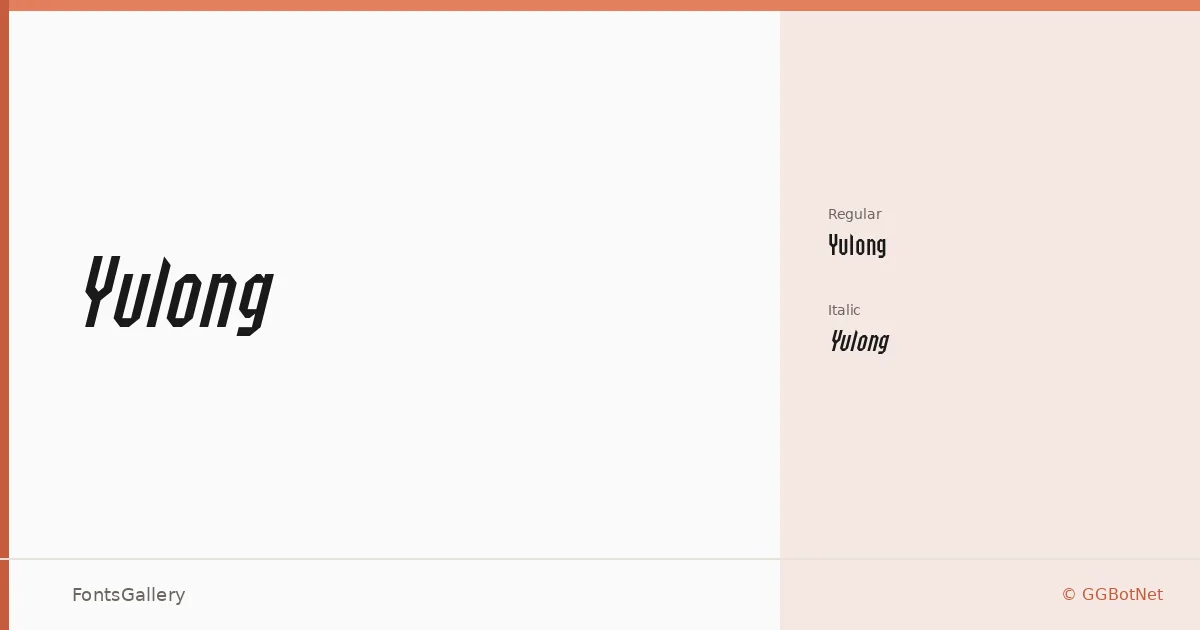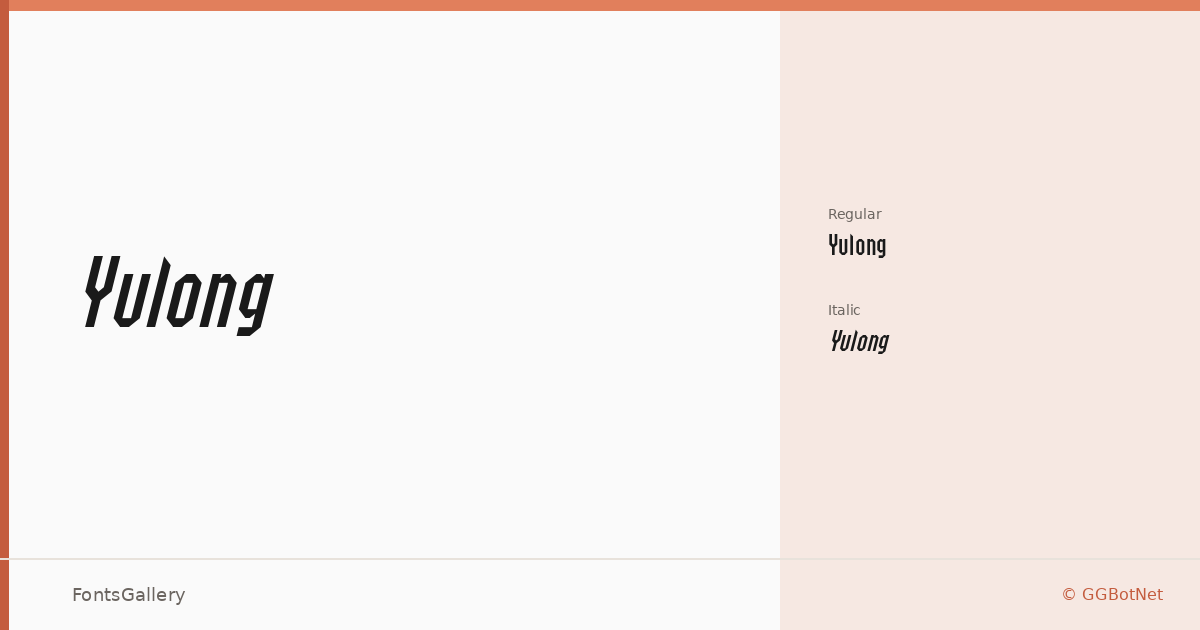
About Yulong Font
There is a cleanness to these letterforms that earns attention without demanding it — a spare, considered geometry that sits comfortably at large sizes without feeling cold. Yulong is the work of GGBotNet, and it arrives in two cuts: a Regular and a companion Regular Italic. The italic carries just enough lean to add motion while staying true to the upright's minimal character.
This is a sans serif built around elegance and restraint — modern in proportion, professional in posture. Both the Regular and Italic are available in TTF and OTF formats, which keeps production straightforward whether you're working in print layout or digital toolchains. The letterforms lean minimal: no decorative detours, just well-resolved terminals and spacing that holds its composure across headline sizes. Script coverage is notably broad for a family this spare, reaching across Latin and Latin Extended (partial), Vietnamese, Cyrillic, Greek, and Han (partial).
The family is most at home in branding systems, editorial headlines, poster work, logo lockups, and magazine display — any context where a minimal, authoritative voice is the brief. For text companions, it has been paired with Canela and ABC Arizona, both of which provide warm serif contrast. Armelie, Kactigona, and 321 Impact round out the pairing list for situations calling for more expressive or high-impact secondary faces.